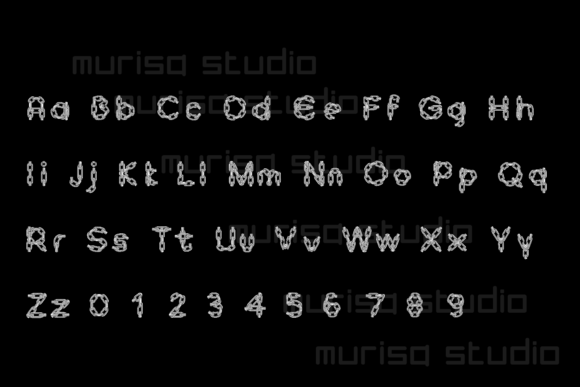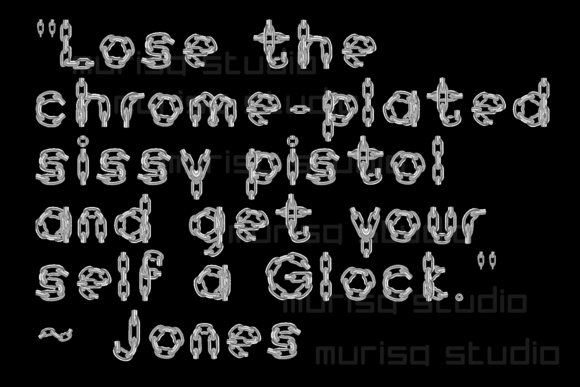
Introduction to Chrome Chain Font
Chrome Chain is a cool and fun color font.
No matter the topic, this font will be an incredible asset to your fonts’ library, as it has the potential to elevate any creation Note.
Key Features of Chrome Chain Font
Why Choose Chrome Chain Font?
Chrome Chain Font offers exceptional quality and versatility, making it a valuable addition to your design toolkit. Whether you’re creating for personal projects or commercial use, Chrome Chain Font delivers professional results.